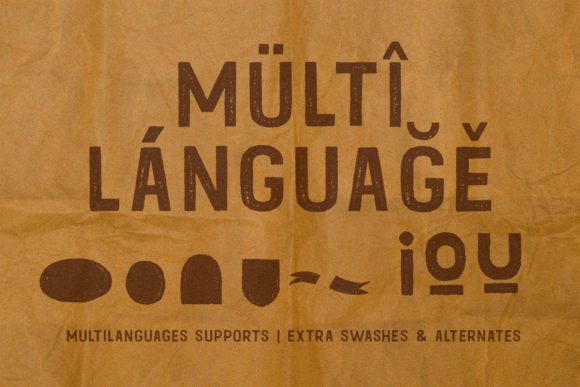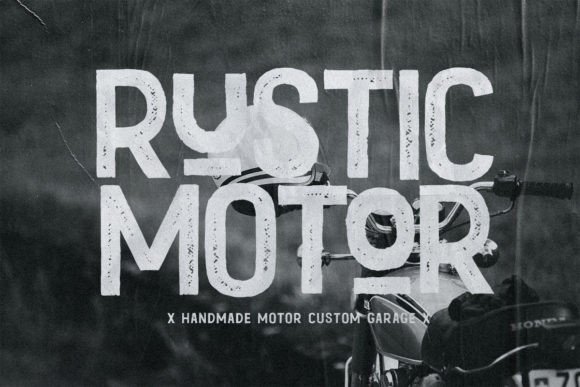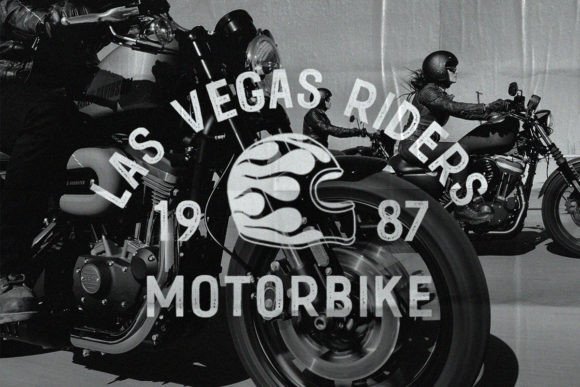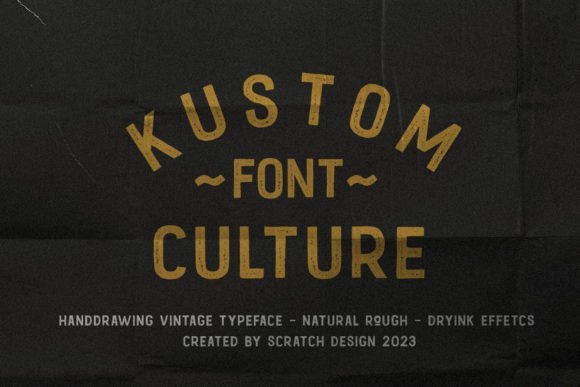
Introduction to Kustom Culture Font
Kustom Culture font was born from an inspiring vintage old paint display.
This font gives a vintage, classic, and old feel, inspired by authentic old paint effects Kustom Culture font is perfect for you looking for a vintage and logotype.
Key Features of Kustom Culture Font